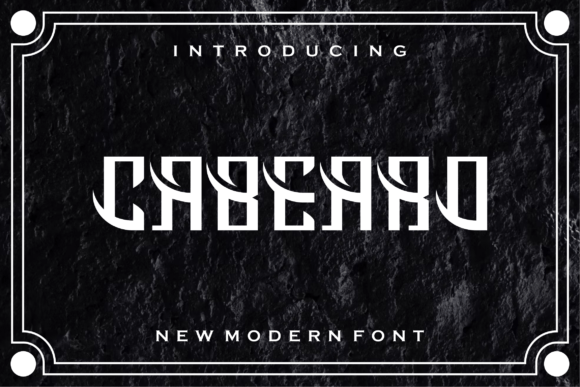
Prepare to be captivated by Cabearo, the gothic and impressive blackletter font that will unleash your wildest creative potential! Each character exudes a solemn elegance that will leave an unforgettable mark on your designs.
Whether you're crafting research posters, branding materials, or any project that demands a touch of the extraordinary, Cabearo stands ready to deliver. Its intricate letterforms and commanding presence will elevate your creations to new heights of sophistication and impact.
Indulge in the limitless possibilities that Cabearo offers. Let your imagination soar as you explore its distinct character. The possibilities are endless, and the results will undoubtedly be extraordinary.
Embrace the power of Cabearo today and embark on a design journey that will leave a lasting impression. Your creativity deserves the best, and Cabearo is the key to unlocking its full potential.